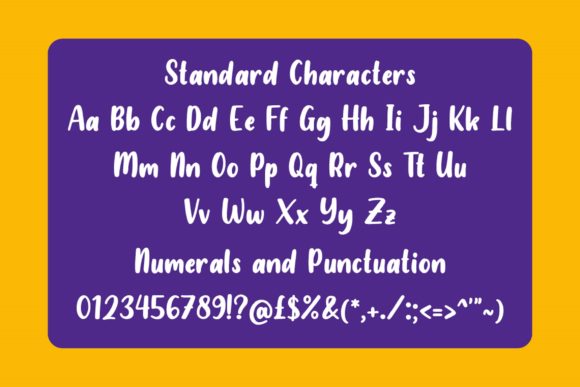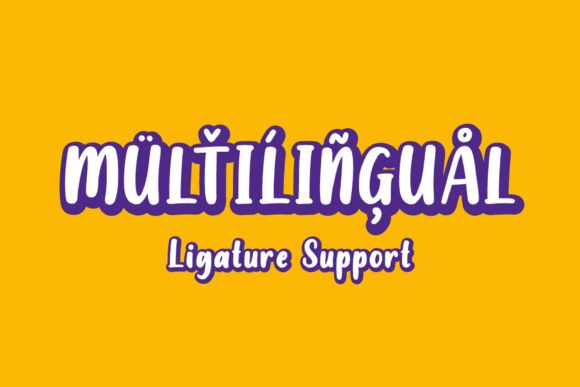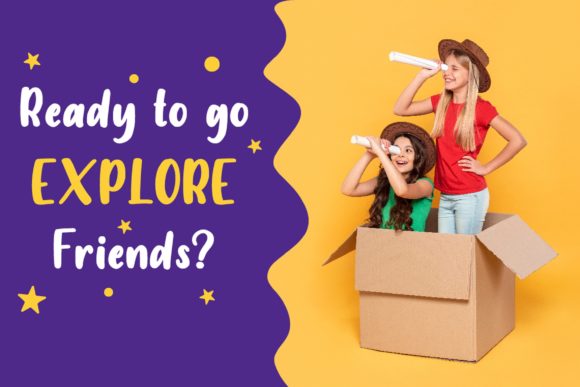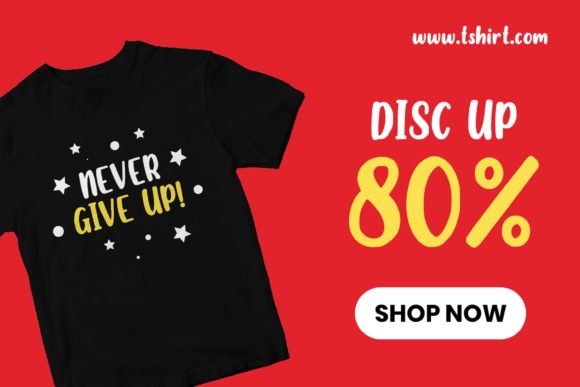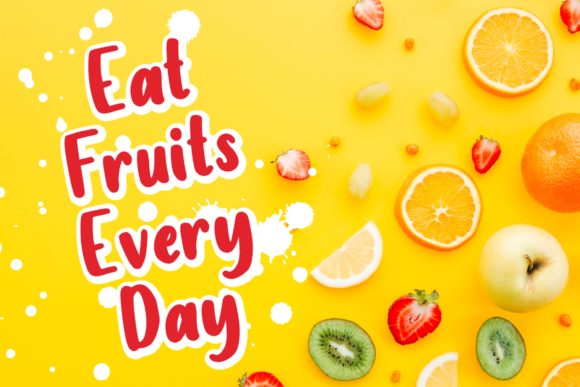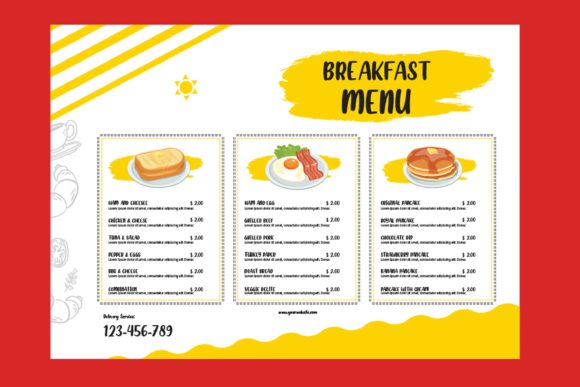
Bring Joy to Your Designs with the Balloo Font
Have you ever stared at a blank page, waiting for the perfect font to bring your creative vision to life? The struggle is real, but it’s about to get a whole lot easier with the Balloo Font. This adorable display font is the ultimate game-changer for designers looking to add a touch of whimsy and personality to their work.
With its PUA-encoded glyphs and swashes, the Balloo Font is incredibly easy to use, allowing you to unlock its full potential and add a dash of joy to each of your creative projects. Whether you’re designing a children’s book, a wedding invitation, or a social media campaign, the Balloo Font is the perfect addition to take your designs to the next level.
- Unique Characteristics: Balloo Font features a unique blend of modern and vintage elements, making it perfect for creative and artistic projects that require a touch of elegance and sophistication.
Balloo Font Review
I’ve had the chance to work with the Balloo font, and I must say it’s an interesting choice for designers. Here’s my honest review.
- ✨ Unique aesthetic: The Balloo font has a quirky, playful feel that can add a lot of personality to a design.
- ✨ Good for headlines: The font’s bold, energetic style makes it well-suited for headlines and titles.
- ✨ Easy to read: Despite its quirky style, the font is still easy to read and understand.
- ⚠️ Limited versatility: The Balloo font is best suited for playful, creative projects – it may not be the best choice for more formal or professional designs.
- ⚠️ May not be suitable for small text: The font’s bold style can make small text difficult to read.
- ⚠️ Limited character set: The font may not include all the characters you need, which can be a problem for international projects.
Overall impression:
I’d say the Balloo font is a great choice for designers who want to add some personality to their projects. However, it’s not a good fit for every project – use it when you need a bold, playful font that can add some fun to your design.
The Balloo Font is commonly used in:
- Children’s products and packaging
- Event and party invitations